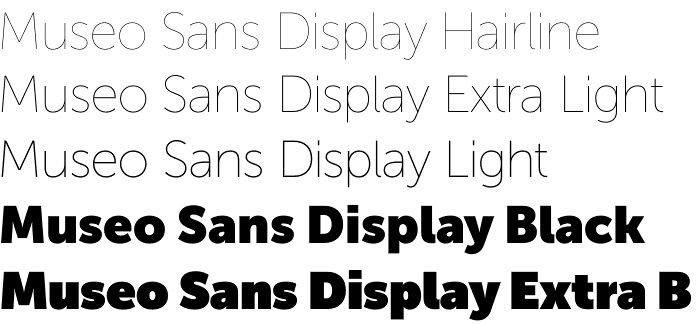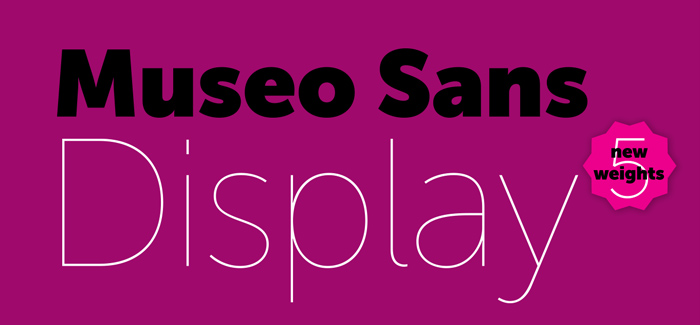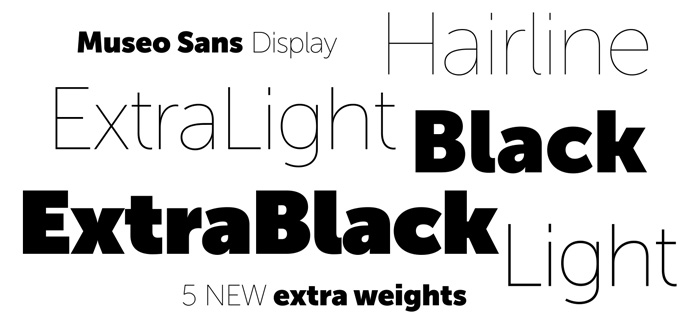
Museo Sans Display font
Museo Sans Display font is the latest addition to the big and beautiful Museo family by exljbris Font Foundry (Museo Sans, Museo Sans Cyrillic, etc.). It is designed in 5 weights – Hairline, Extra Light, Light, Black and Extra Black – showing the end points of the whole dynamic range – from lowest to highest contrast. Just like all its brothers in the family Museo Sans Display has excellent legibility in small text sizes – both on screen or print graphics – combined with great attention to detail in every character. Opentype compatibility is another great feature of this font family – it offers full set of ligatures and West European diacritics and if we look back to other Museo members then maybe we should see Cyrillic edition very soon.
Despite the absence of the mid-weights (we believe this is done on purpose), Museo Sans Display is a great font family for use in editorial design, typographic posters, letterhead, packaging and CD, DVD or book covers.
Designers: Jos Buivenga
Publisher: exljbris